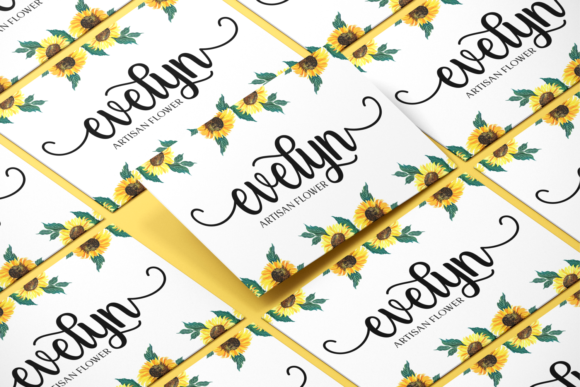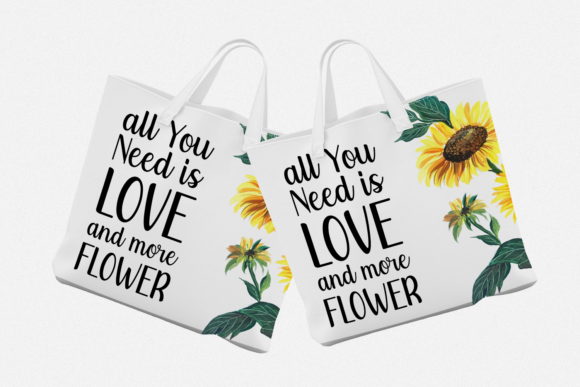
Lovely Floral Font
db-ku.com - Script & Handwritten -- Lovely Floral is a dazzling handwritten font. This flexible script font has a wide spectrum of applications ranging from greeting cards to headlines and is guaranteed to add a jolly feel to your next project.